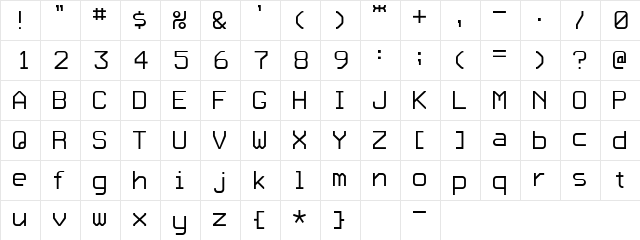
KADO_Maru Regular
Design Context for KADO_Maru Typeface
KADO_Maru takes a measured approach to typography — its balanced proportions and neutral character make it a reliable workhorse for both digital and print work.